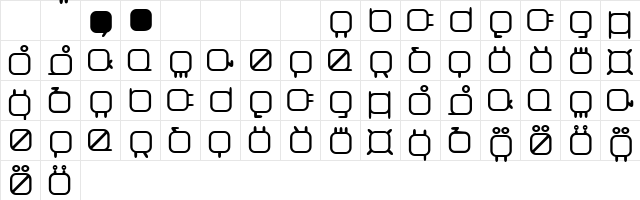
dmf studio koest Regular
Design Context for dmf studio koest Typeface
dmf studio koest is a composed and adaptable typeface that performs quietly and consistently across a wide range of design contexts.